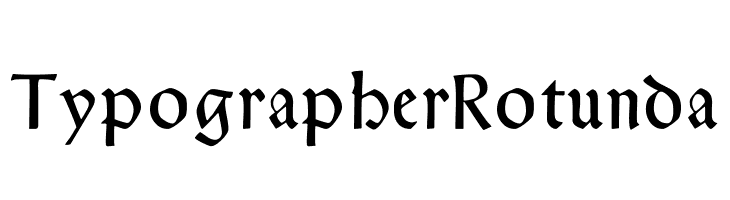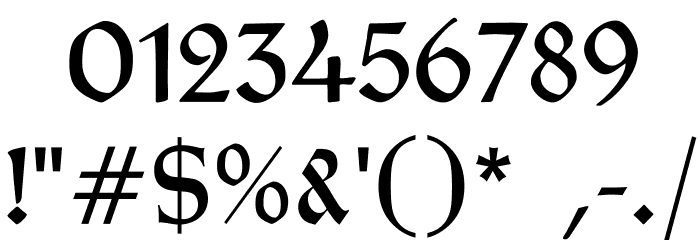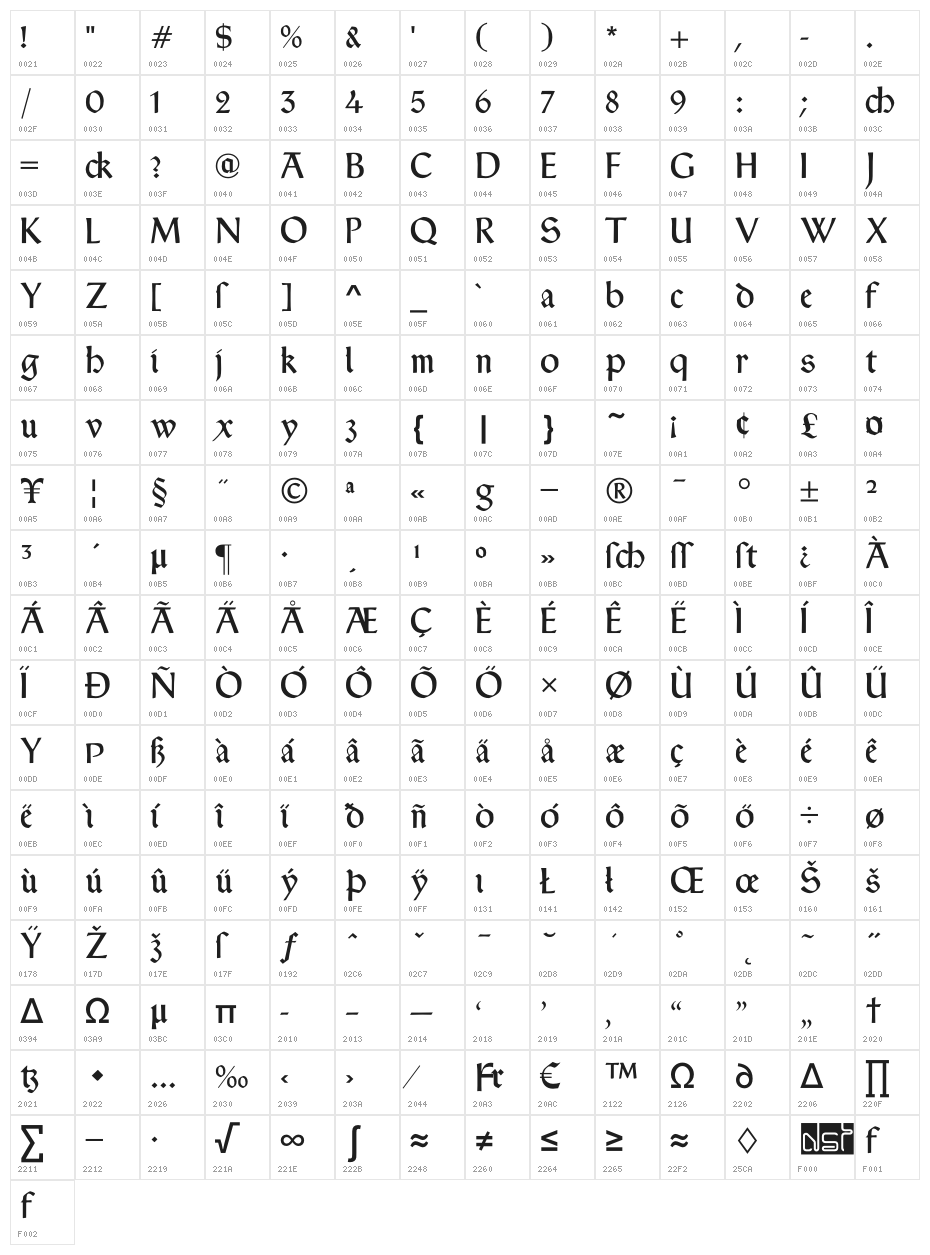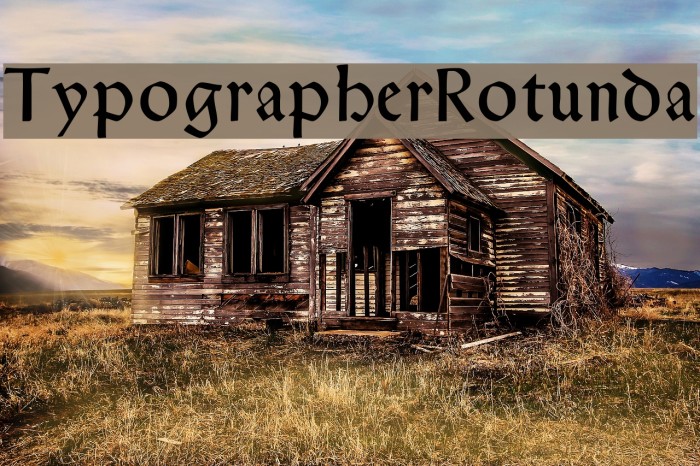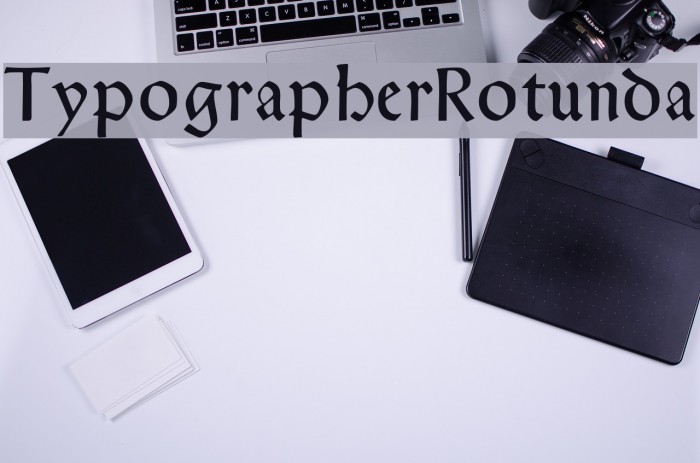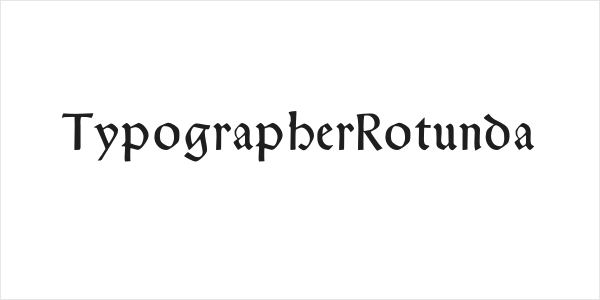
TypographerRotunda Font
TypographerRotunda Description
This font features a classic blackletter style with a modern twist, characterized by its sharp, angular lines and distinct serifs. The uppercase letters are bold and commanding, while the lowercase letters maintain a consistent flow with a slightly more ornate design. Numbers and special characters are crafted to match the overall aesthetic, providing a cohesive look. The font's unique style is reminiscent of medieval script, yet it maintains a contemporary edge, making it suitable for a variety of design applications.
| Proposed Projects | Ideal for branding, logos, posters, and any design project seeking a medieval or gothic touch. |